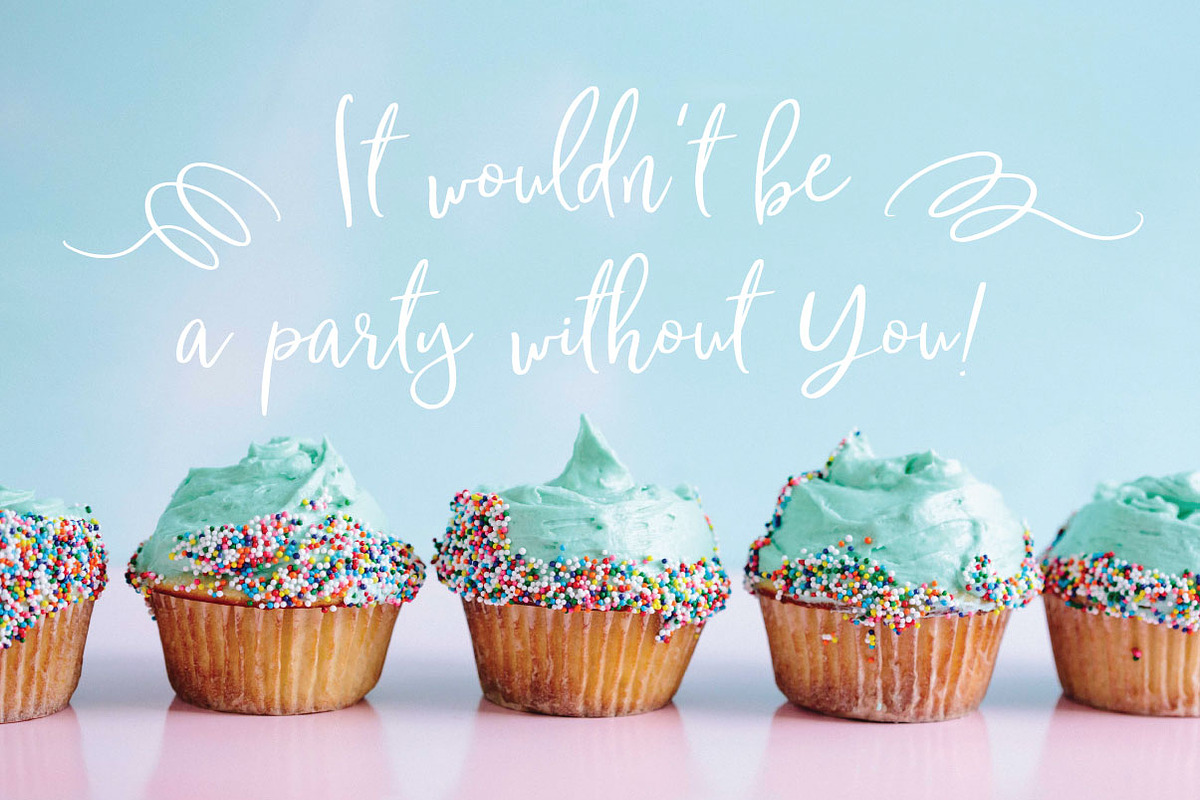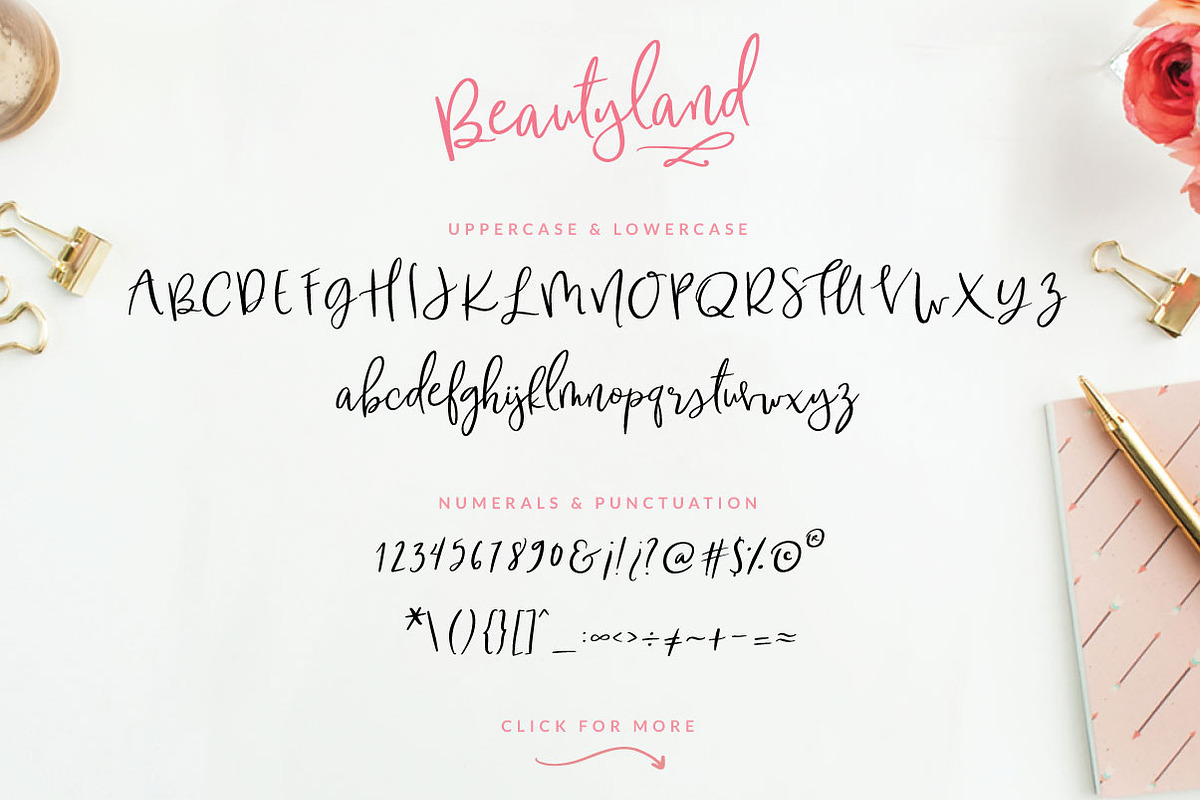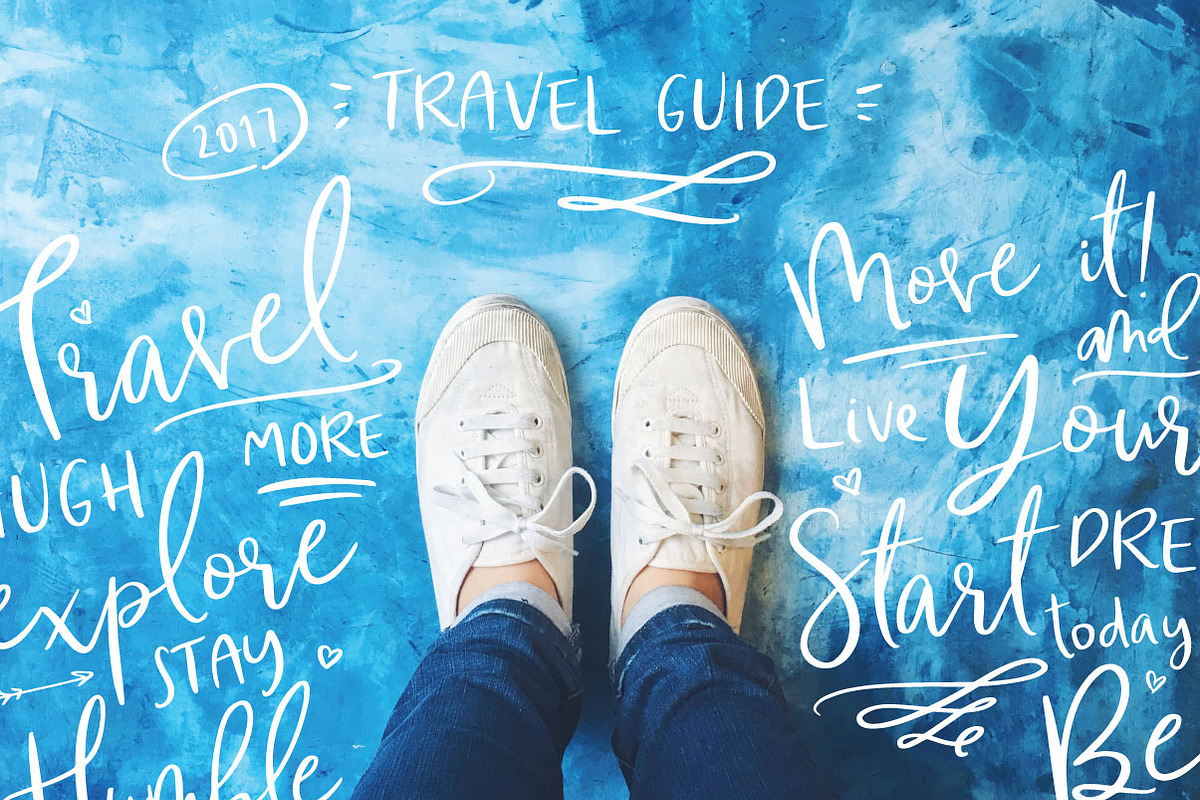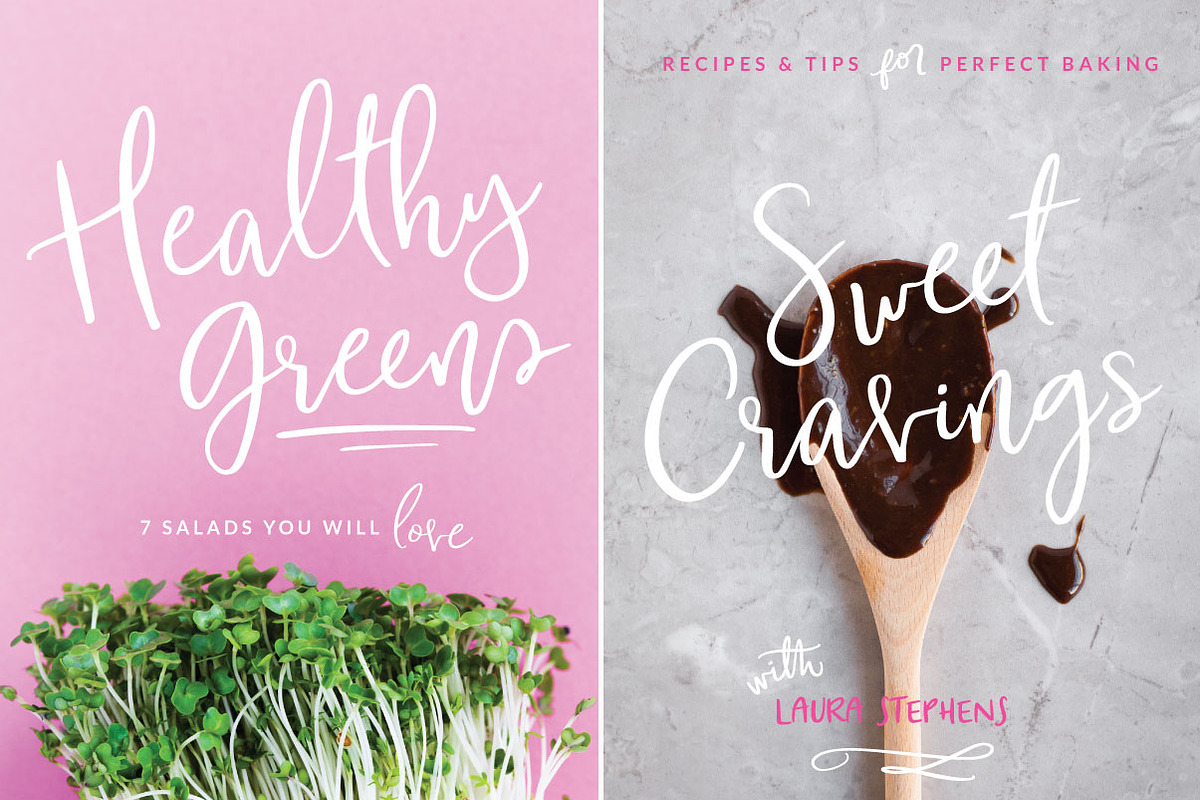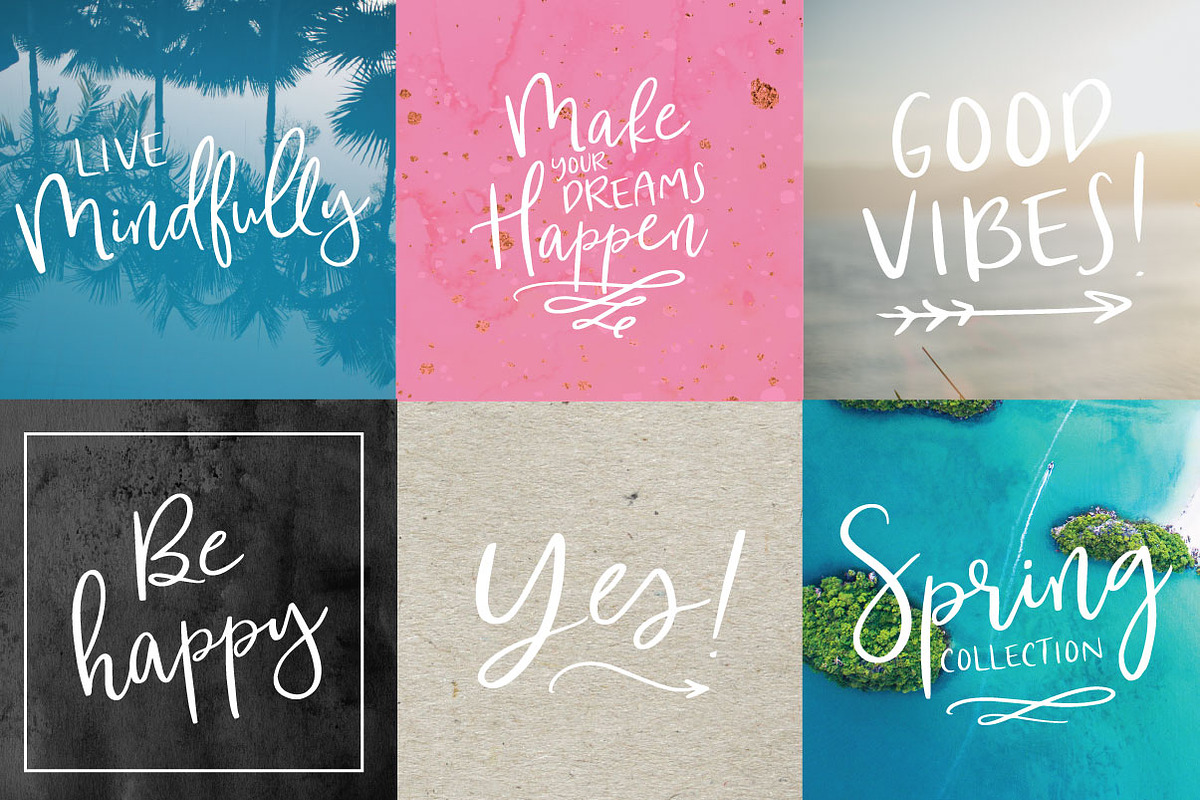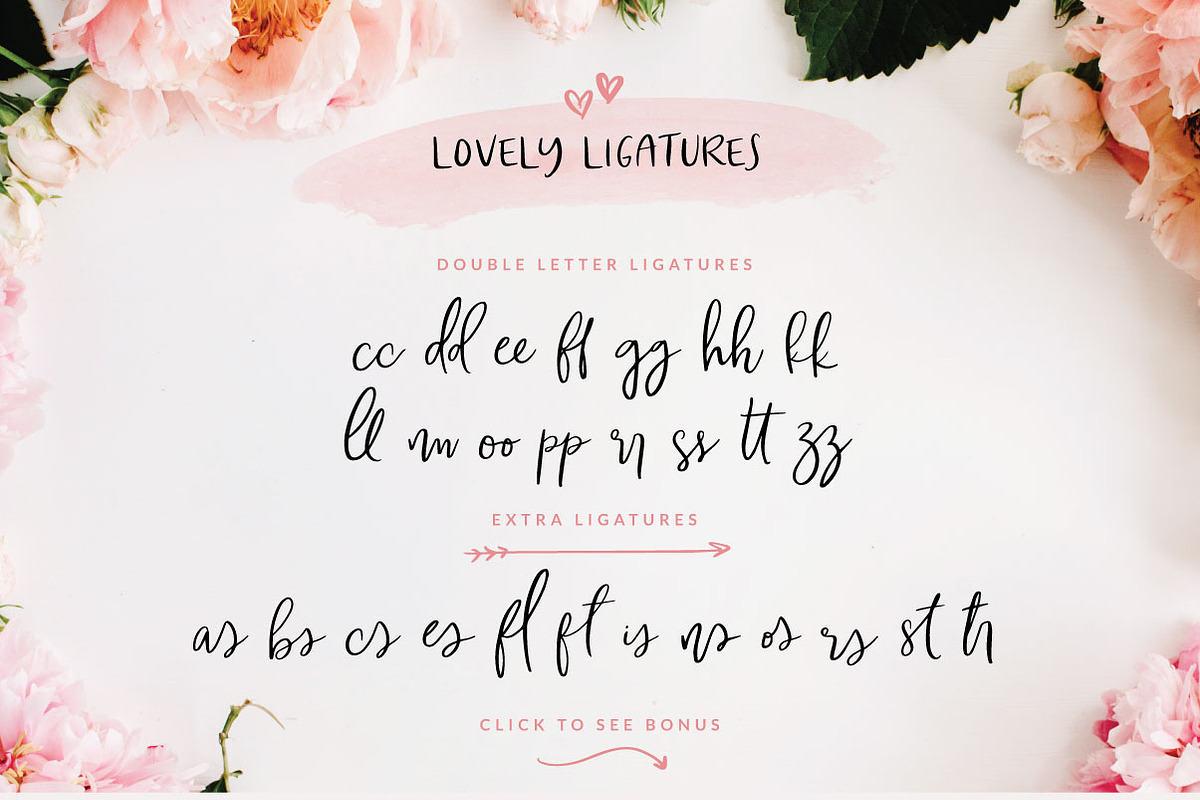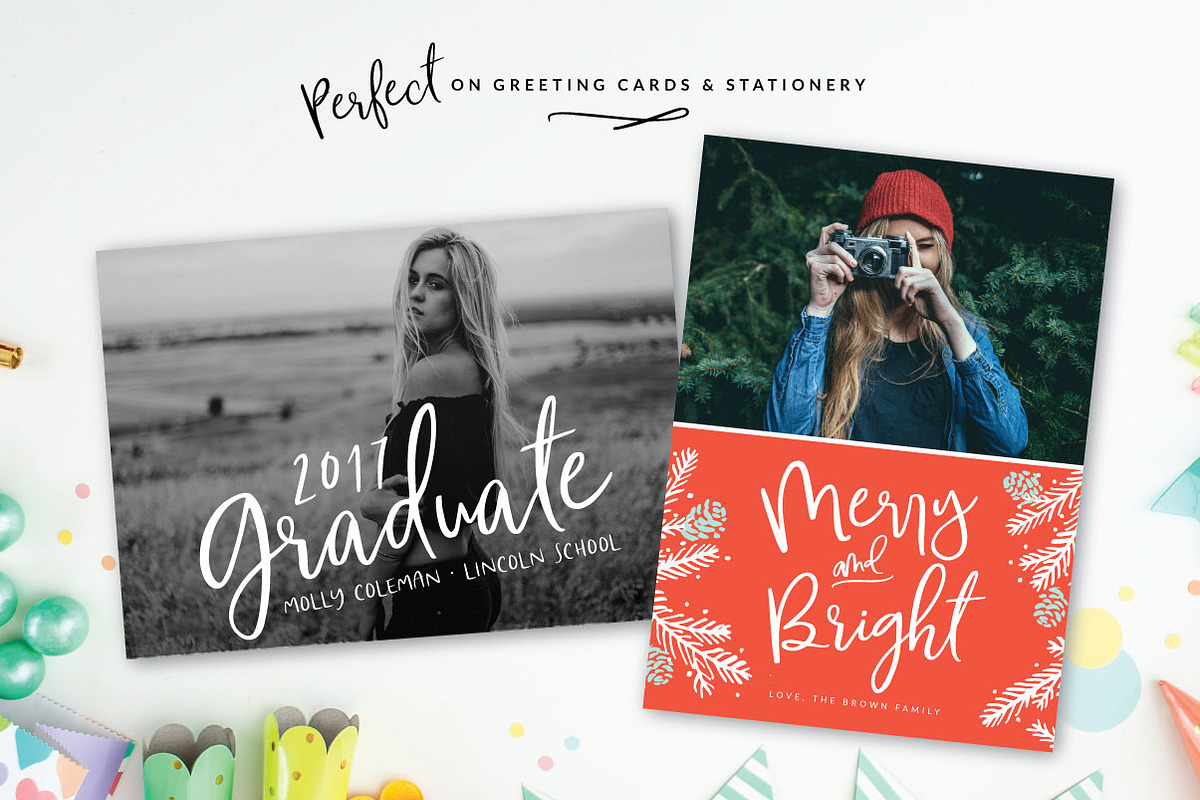
Beautyland Script Font
Beautyland Script Font by Creator Goodies is a font selected for branding, posters, packaging, typography.
- Also features stylistic double letter ligatures for a more realistic text design.
Why Beautyland Script Font is worth a look
Beautyland Script Font by Creator Goodies fits naturally into Branding, posters, packaging, typography.